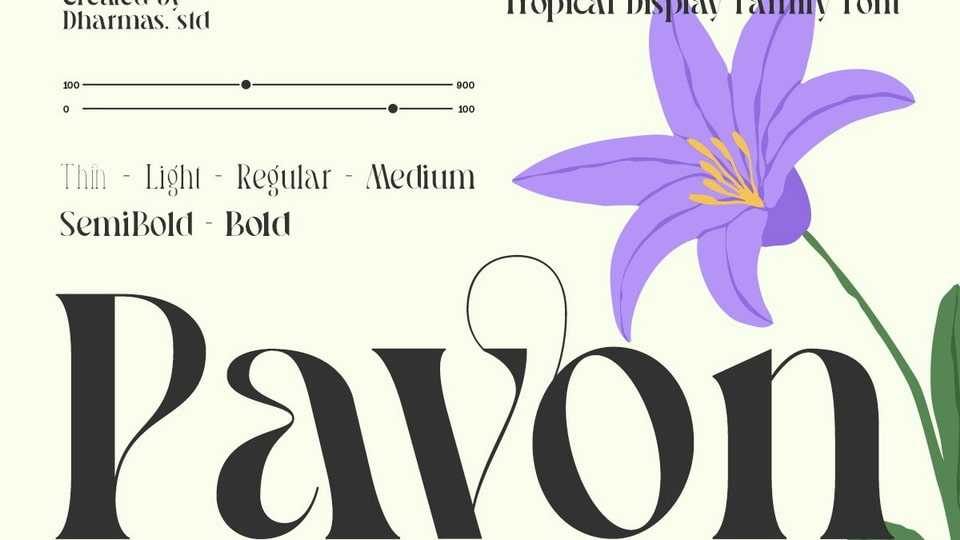
Download Pavon font, a modern typeface family inspired by the elegance of Art Nouveau! Pavon draws its charm from the sophistication of 1910s Italian lake posters.